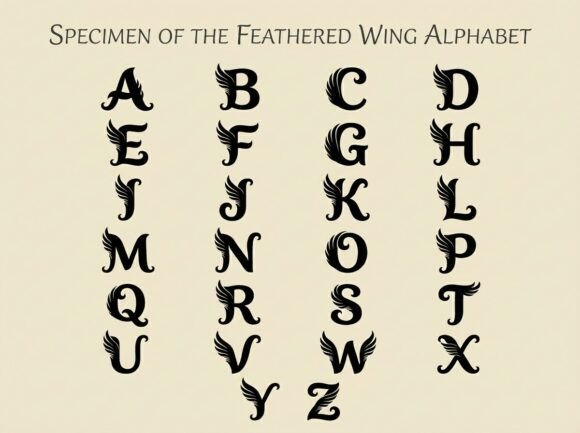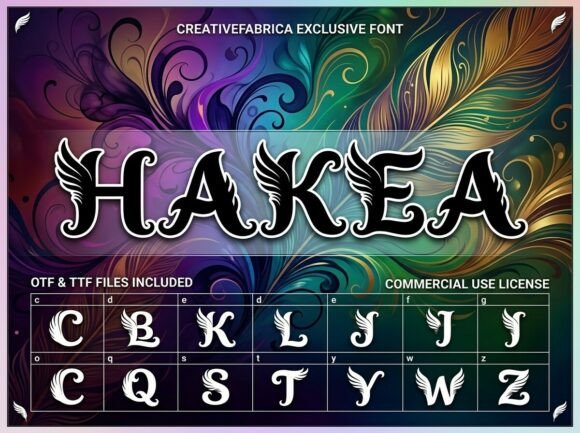
Command Royal Attention with Hakea: The Majestic Display Font
In the realm of typography, few fonts have managed to capture the essence of classical elegance and mythical grandeur as effectively as Hakea. This stunning display font is a masterpiece of design, seamlessly fusing ornamental beauty with avian motifs to evoke a sense of ancient power and sophisticated charm. Whether you’re a designer, craftsperson, or simply someone who appreciates the art of beautiful typography, Hakea is sure to leave you in awe.
The Design Philosophy Behind Hakea
Hakea’s design is rooted in the concept of transforming traditional letterforms into works of art that exude luxury and mystique. The font’s primary stems are ingeniously converted into exquisite, layered wings, giving each character a sense of fluid motion and elegance. The intricate linework and scrolling flourishes terminals are reminiscent of classical engraving, lending an air of refinement and sophistication to any project.
Elegance and Versatility
One of the standout features of Hakea is its versatility. This majestic typeface can be used in a wide range of applications, from high-end spirit labels to fantasy book covers, celestial event invitations, and bespoke jewelry branding. The font’s ability to convey a sense of ancient power and historical charm makes it an excellent choice for designers and crafters looking to add a touch of luxury to their work.
Applications for Designers and Crafters
So, how can you use Hakea to elevate your designs and craft projects? Here are a few ideas to get you started:
- High-end spirit labels: Add a touch of sophistication to your wine, whiskey, or craft beer labels with Hakea’s elegant, scrolling letterforms.
- Fantasy book covers: Transport your readers to a world of myth and magic with Hakea’s majestic, avian-inspired typography.
- Celestial event invitations: Make your invitations feel like a legendary work of art with Hakea’s intricate linework and scrolling flourishes.
- Bespoke jewelry branding: Elevate your jewelry brand with Hakea’s luxurious, high-end typography.
Why Choose Hakea?
With so many fonts available, why choose Hakea? Here are just a few reasons why this majestic display font stands out from the crowd:
- Unique blend of classical and mythical elements: Hakea’s fusion of ornamental beauty and avian motifs creates a truly one-of-a-kind typographic experience.
- Elegant, scrolling letterforms: Hakea’s intricate linework and scrolling flourishes terminals evoke the craftsmanship of classical engraving.
- Versatile and adaptable: Hakea can be used in a wide range of applications, from high-end branding to fantasy book covers.
In conclusion, Hakea is a majestic display font that is sure to command royal attention. With its elegant, scrolling letterforms and mythical avian motifs, this stunning font is the perfect choice for designers and crafters looking to add a touch of luxury and sophistication to their work. Whether you’re creating high-end spirit labels, fantasy book covers, or bespoke jewelry branding, Hakea delivers a sense of ancient power and historical charm that is sure to leave a lasting impression.